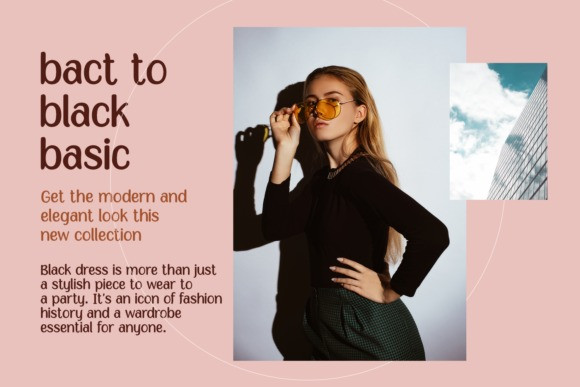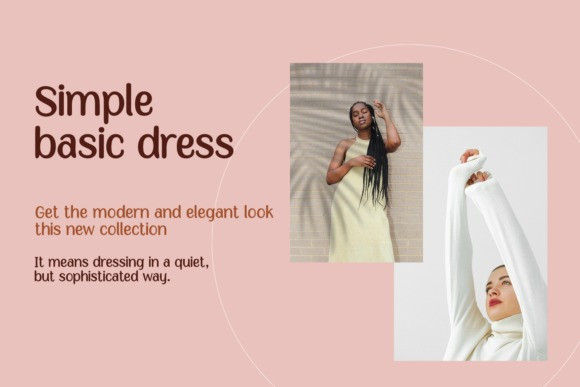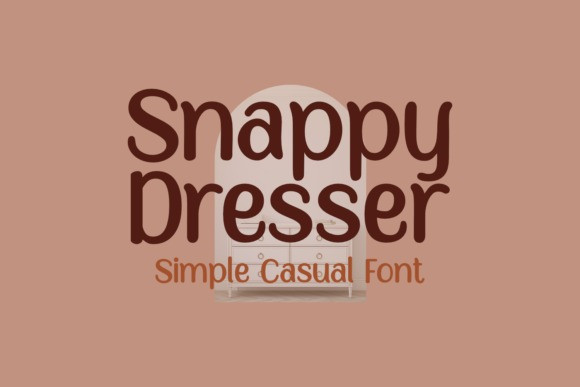
Snappy Dresser Font
Snappy Dresser Display Font is a simple and casual handwritten font. It has an informal style with a neat vibe, and it is a good choice for each of the creations that require a relaxed touch.